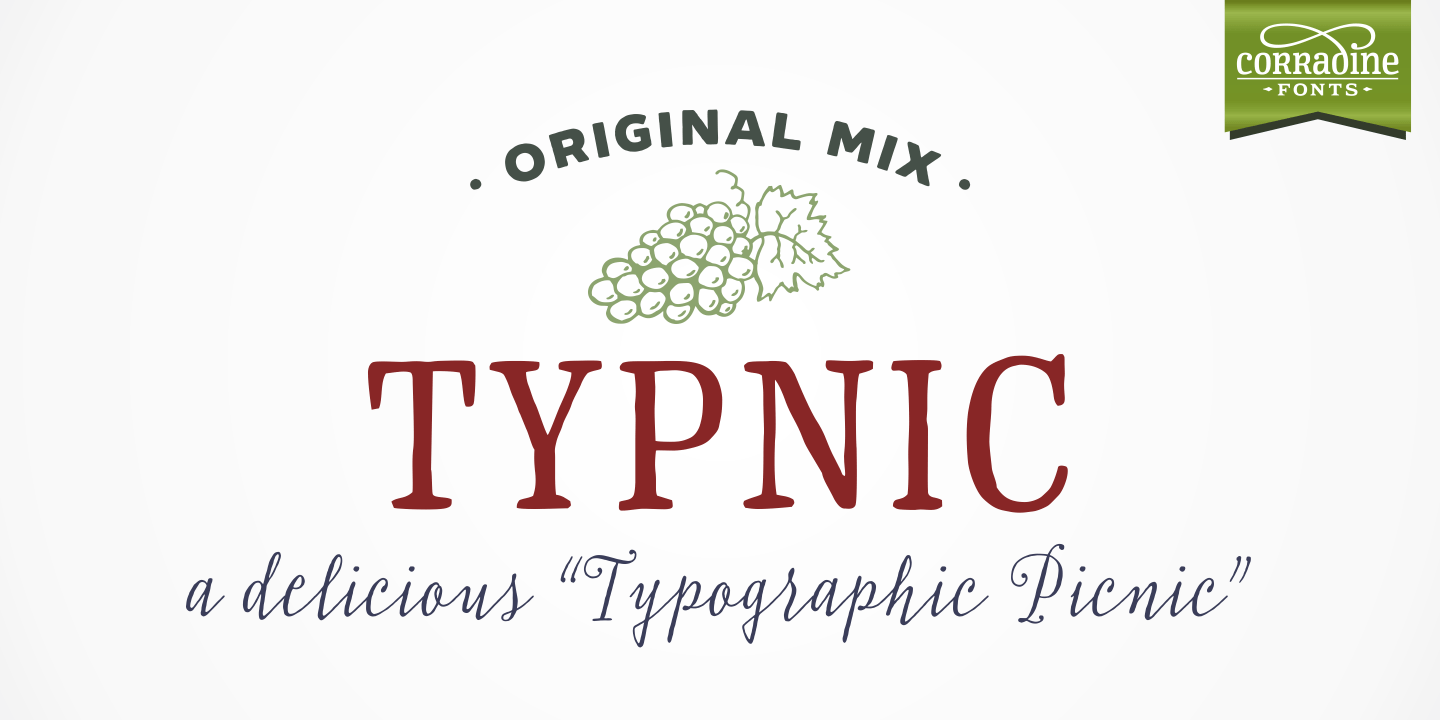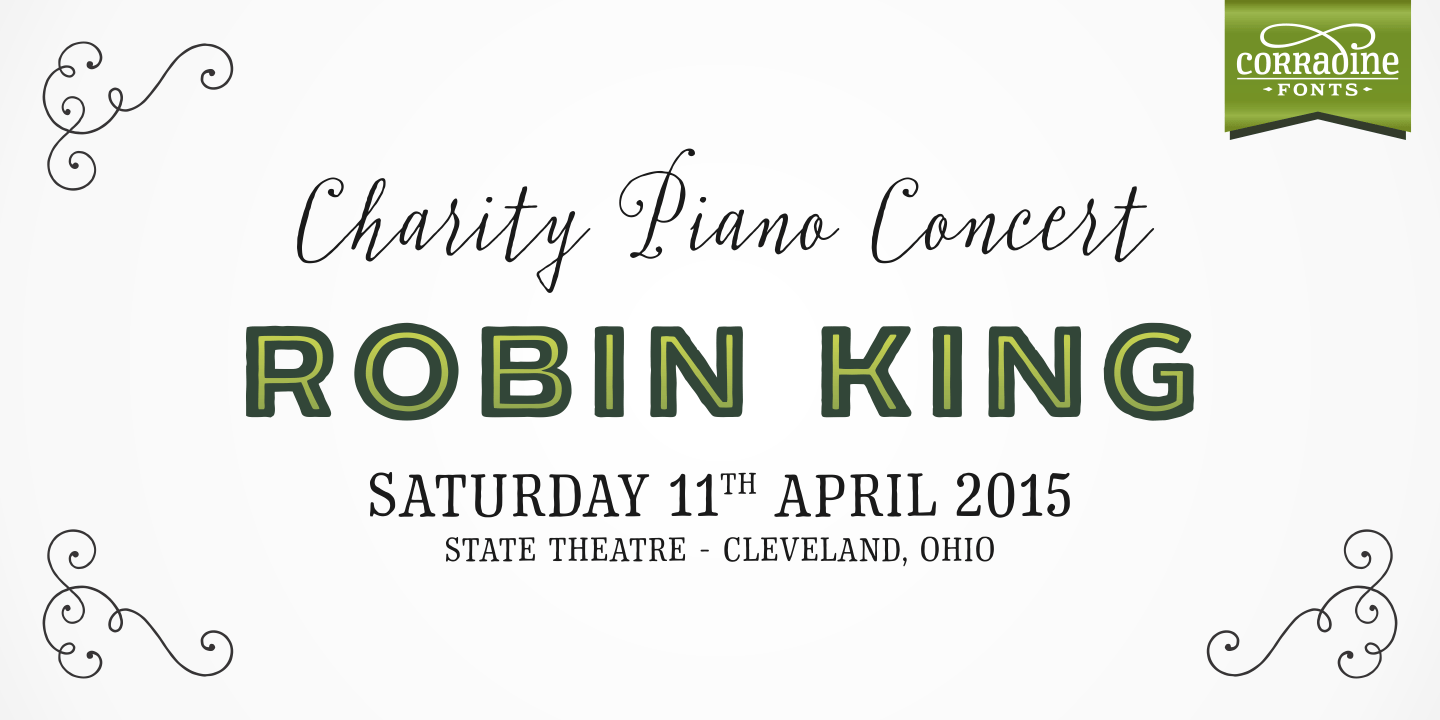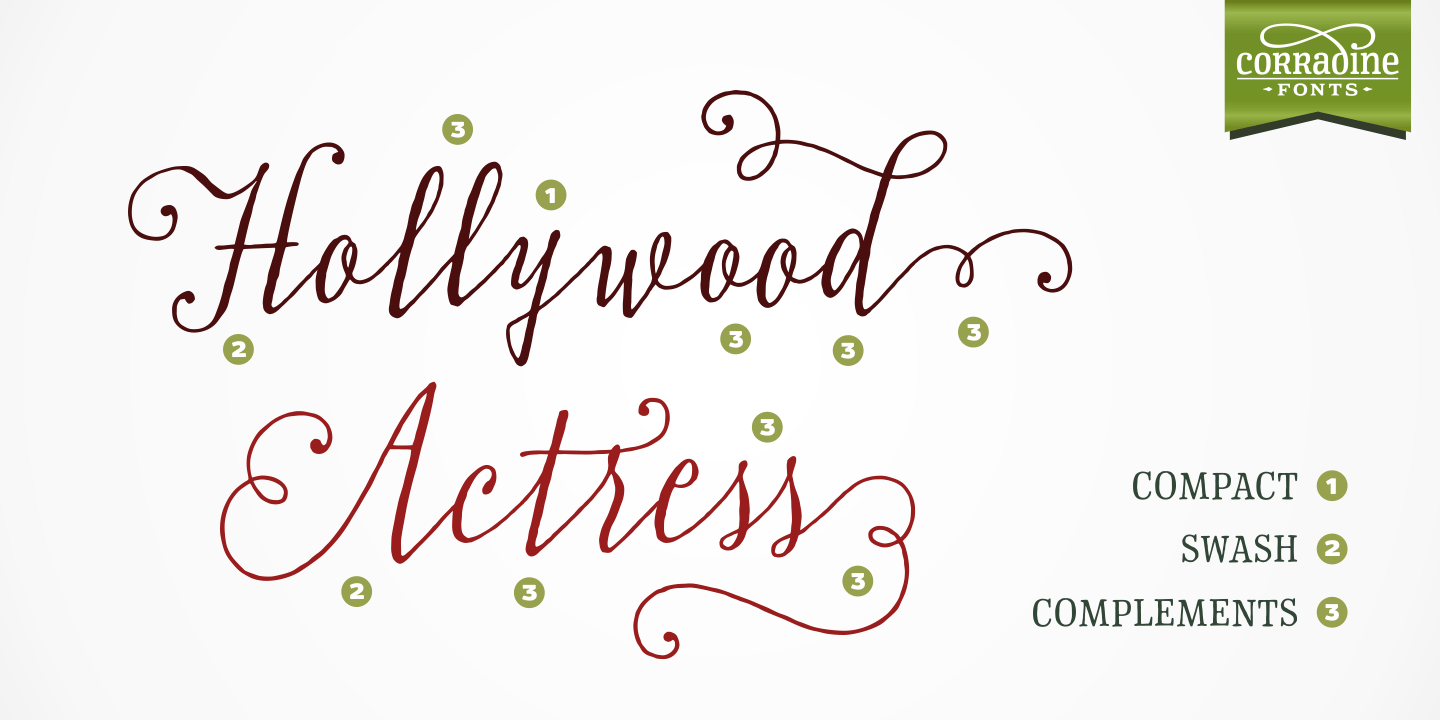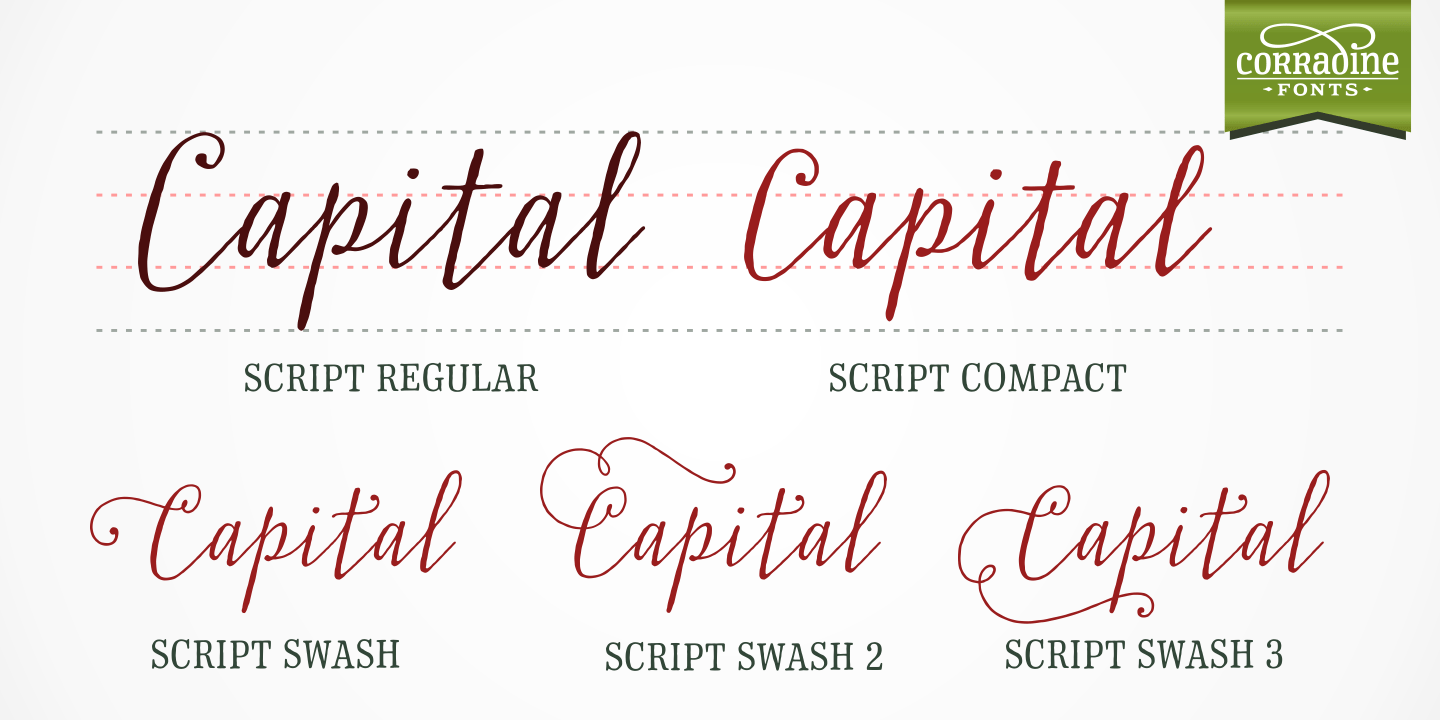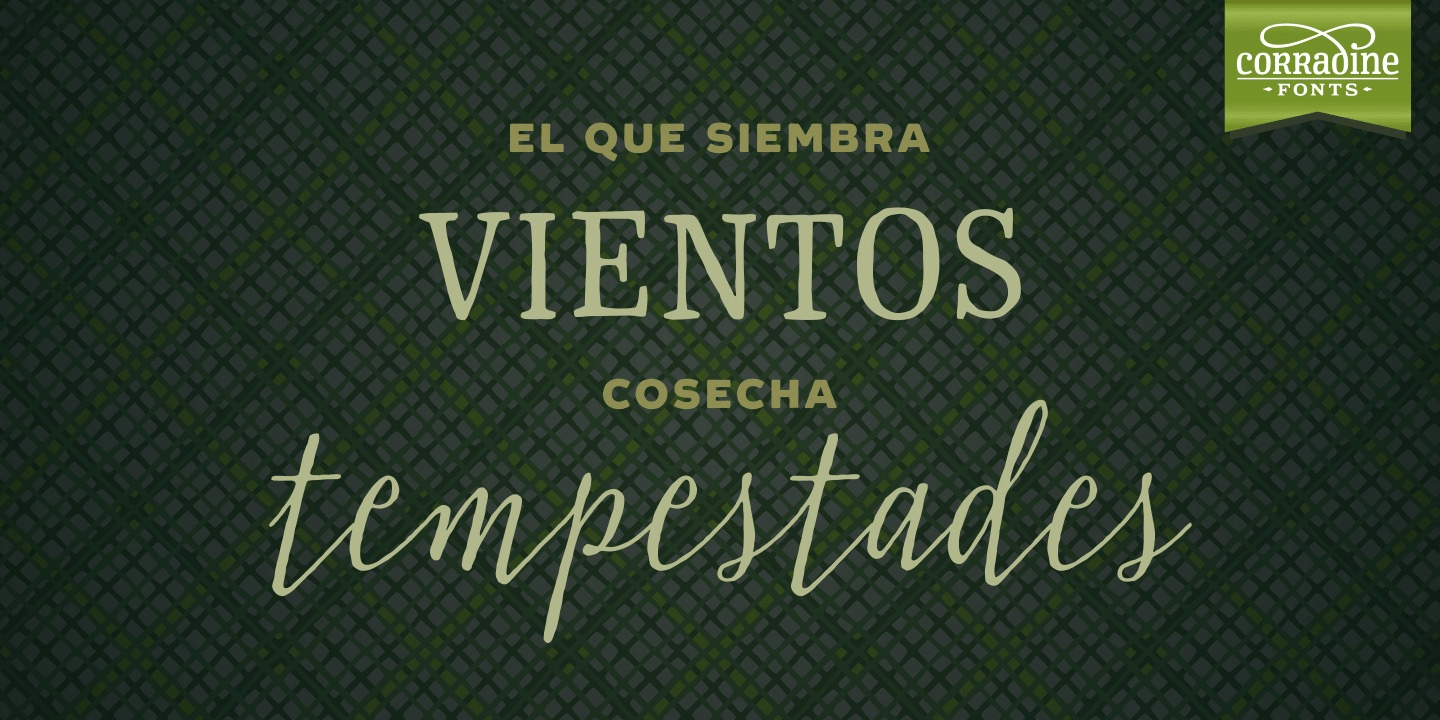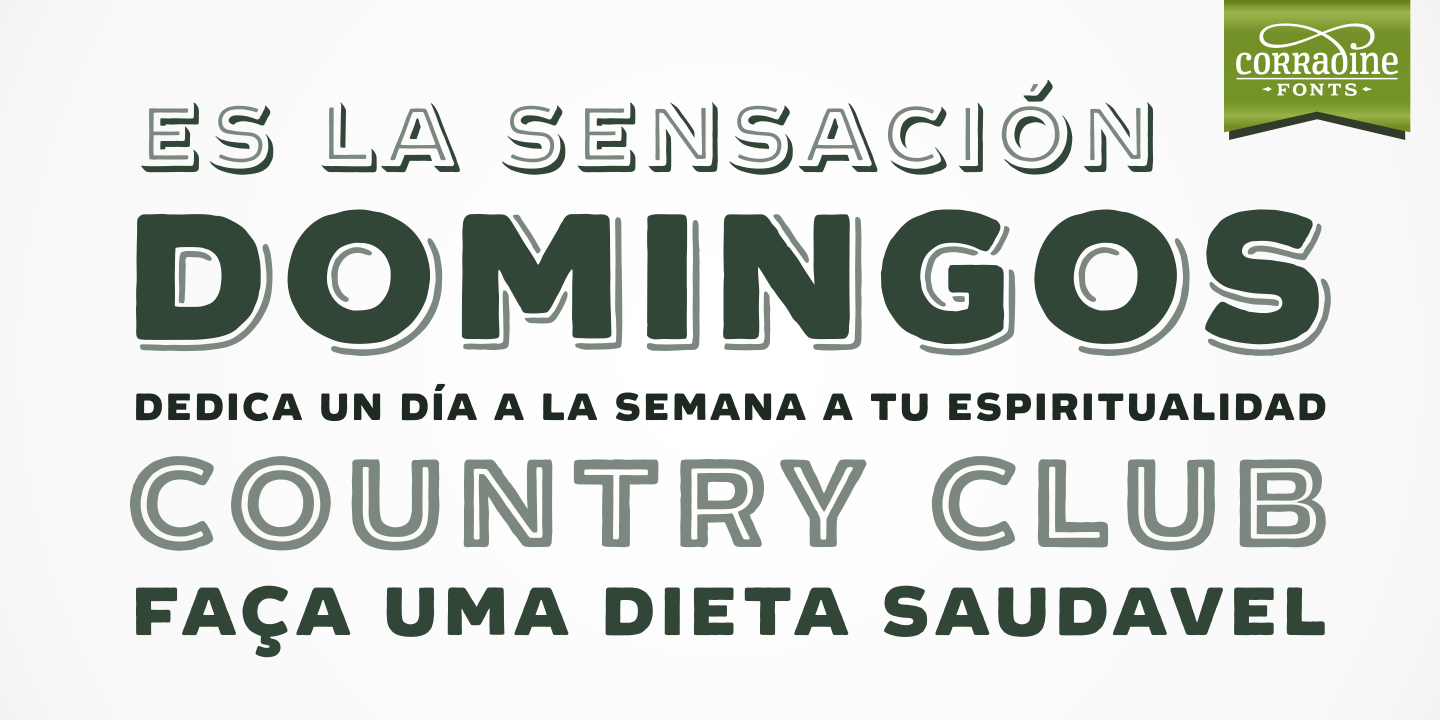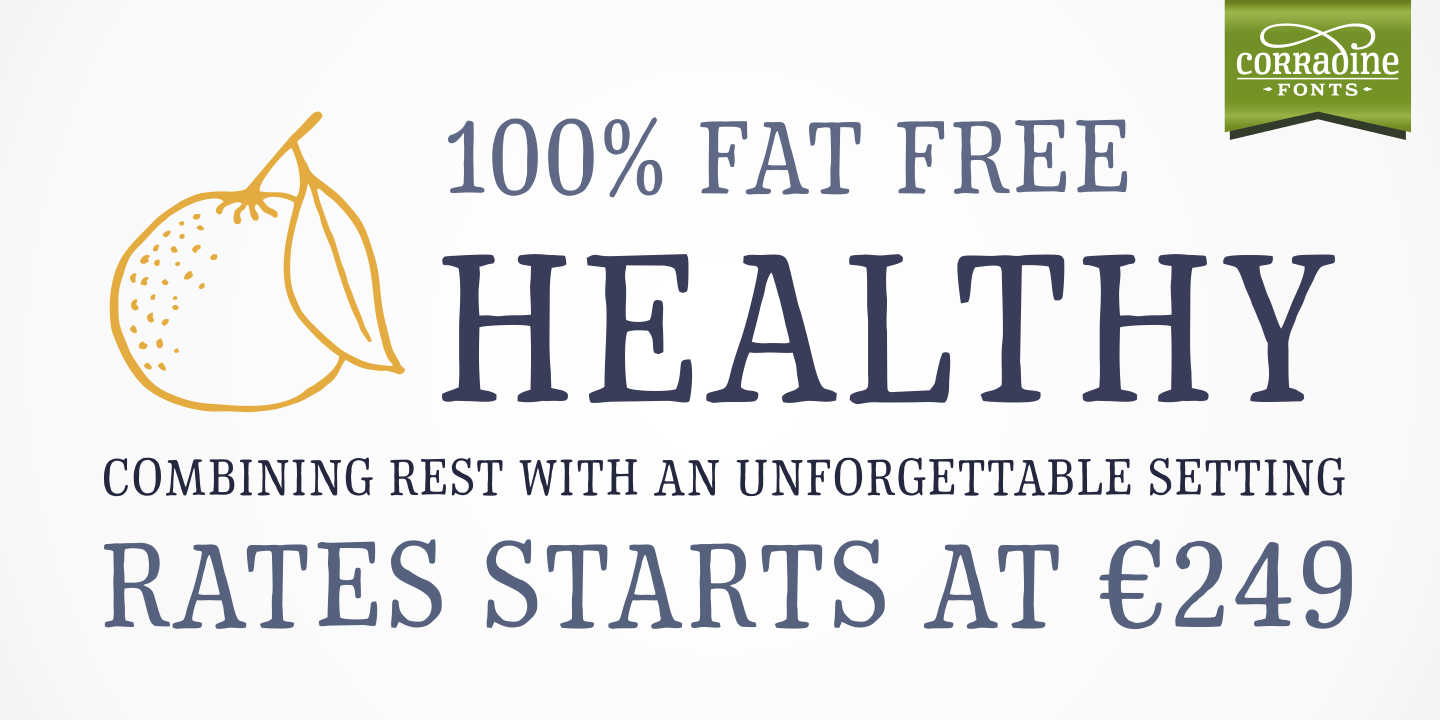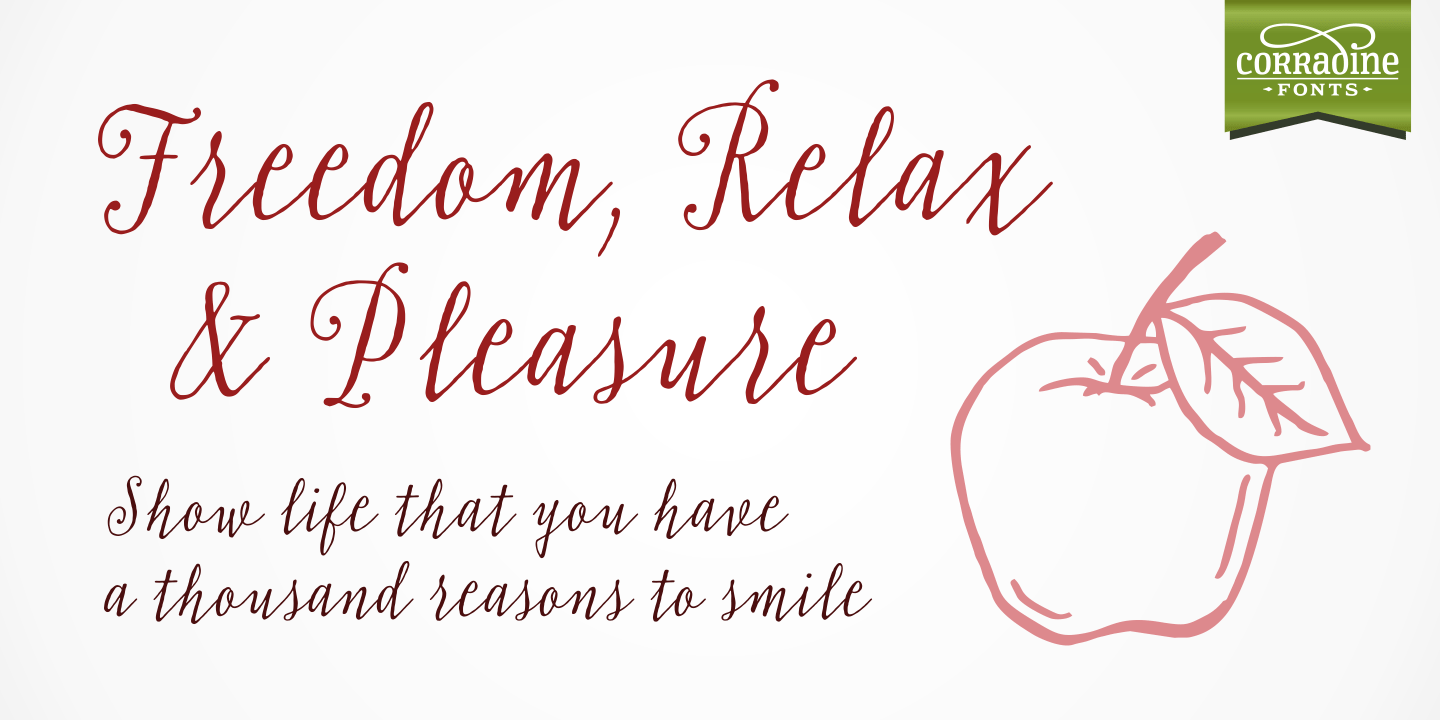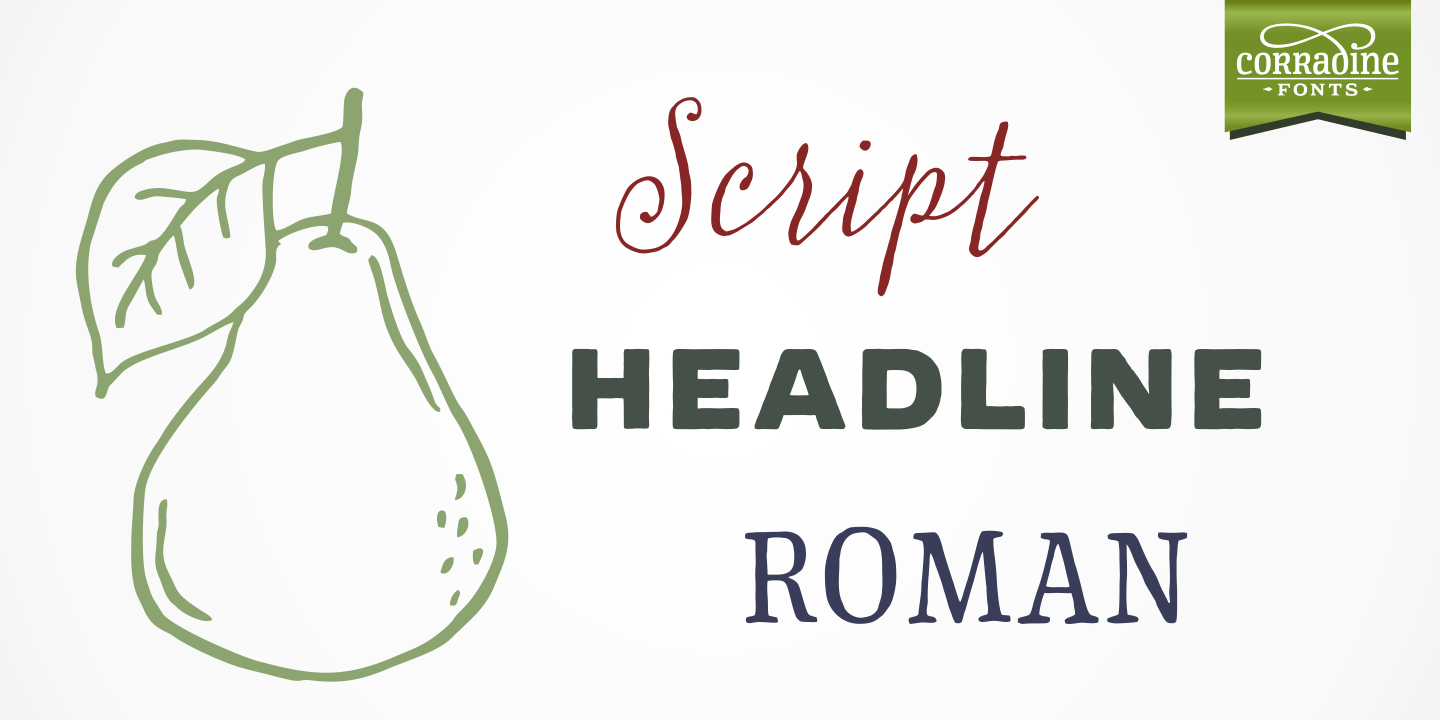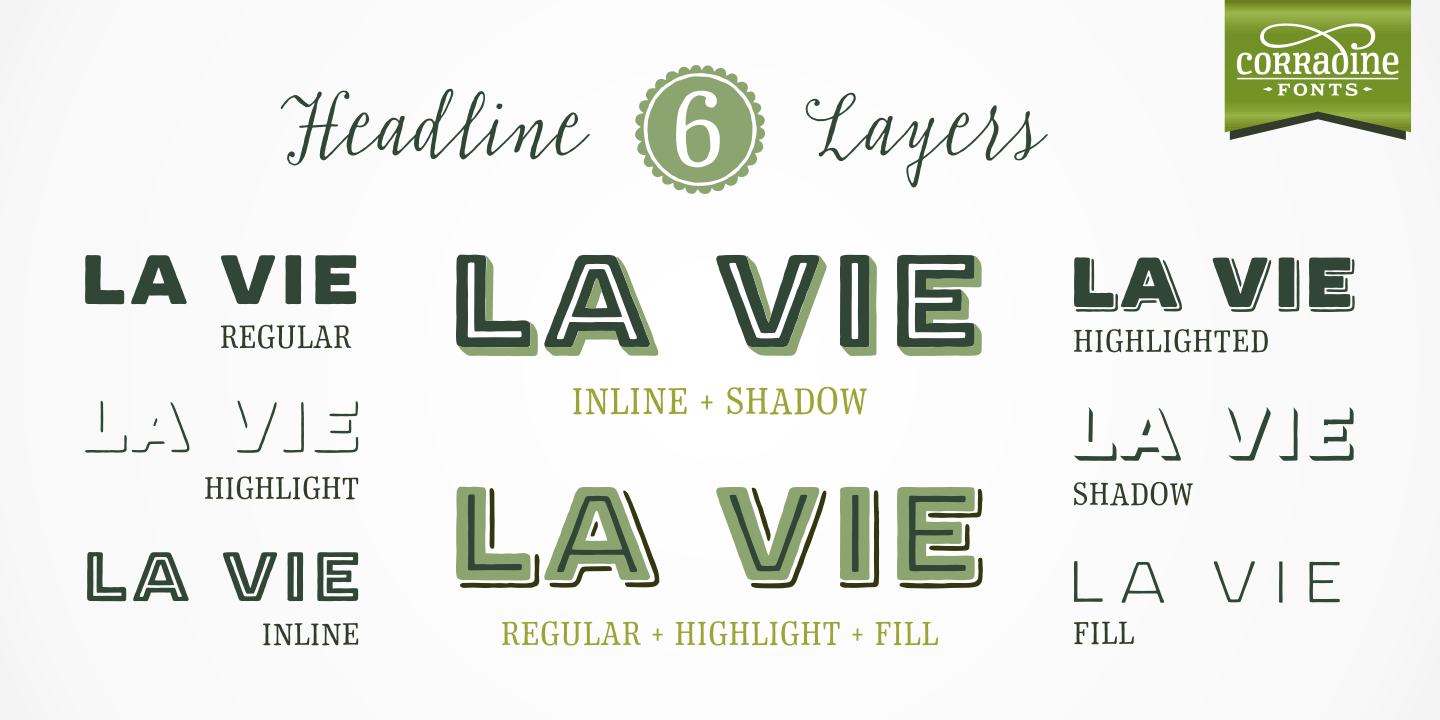
Typnic
Everybody likes to have a picnic: some fresh fruits, cheese, ham, wine and so on. Like a 'typographic picnic,? Typnic font system gathers many fonts with different flavors too, and you can enjoy them mixed or on their own.
Typnic was drawn and calligraphed by hand and is made with eighteen typefaces, including three totally compatible yet different styles. It also has enhancement sets containing labels, dingbats, patterns and ornaments.
The Headline style has six layered fonts that can be mixed in a wide variety of combinations to obtain powerful mastheads and headlines. It can be used to construct very nice advertising pieces.
If you need to write informal texts, then use Typnic Script, which also comes in six variants and additionally has a complementary font with tails, double letters and ornamented ascenders.
Finally, use Typnic Roman to add some secondary texts without losing the general appearance of your work.
Typnic has a cool and natural feeling and could be used in all sorts of projects.
Typnic is a very ambitious project and we will be working on it to further expand the whole system.